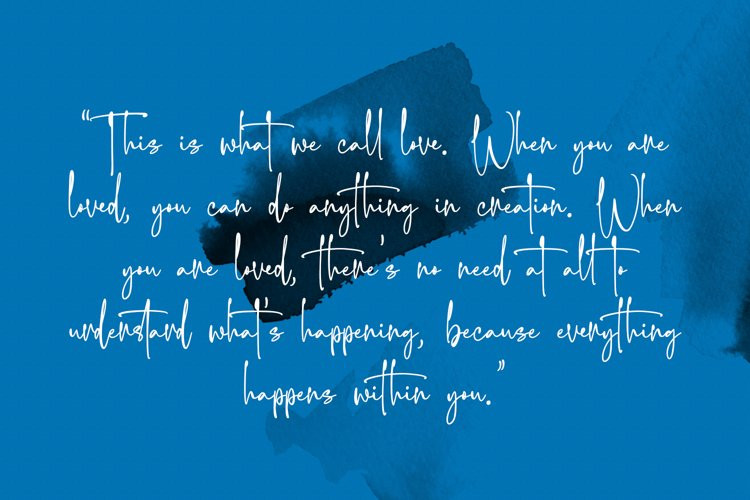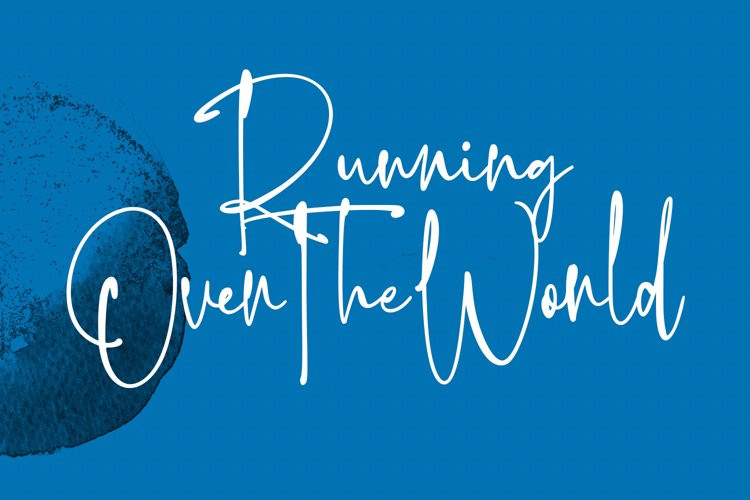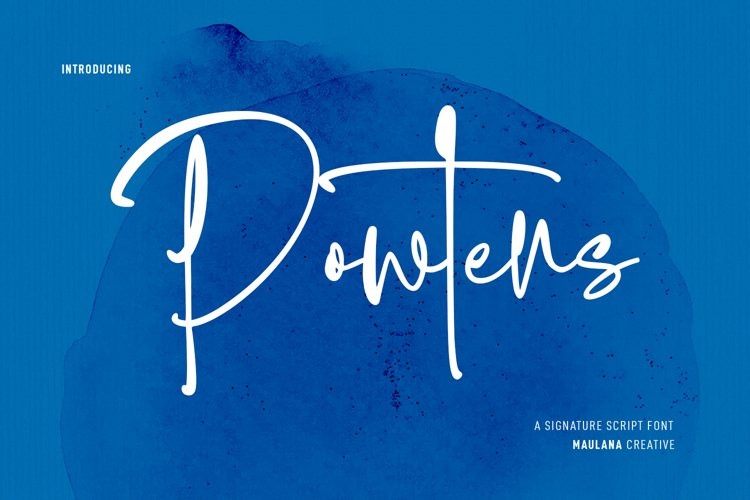
Powters Font
Powters FontPowters is an ink’ish casual modern script font. With light contrast stroke, fun character with a bit of ligatures and alternates. To give you an extra creative work. Powters font support multilingual more than 100+ language. This font is good for logo design, Social media, Movie Titles, Books Titles, a short text even a long text letter and good for your secondary text font with sans or serif. Make a stunning work with Powters font.